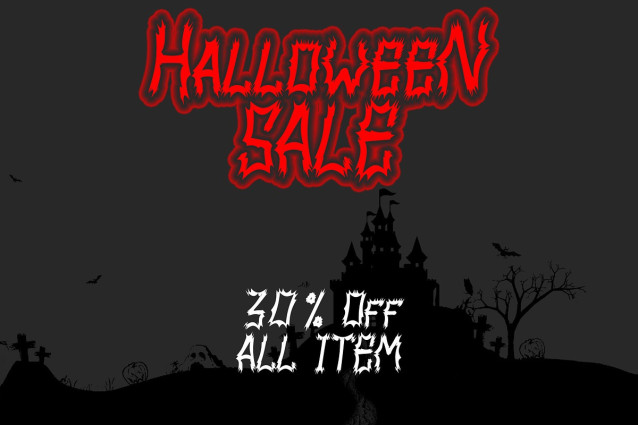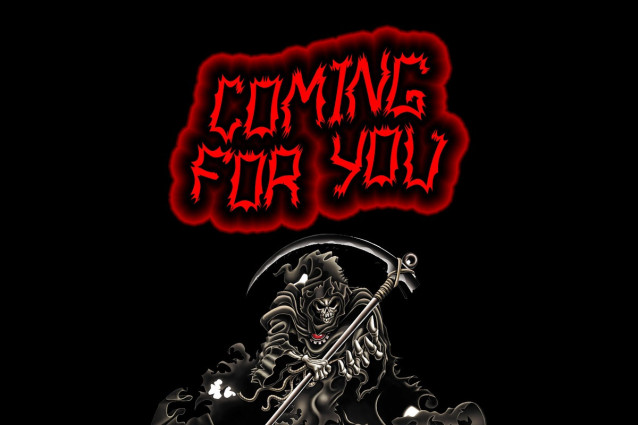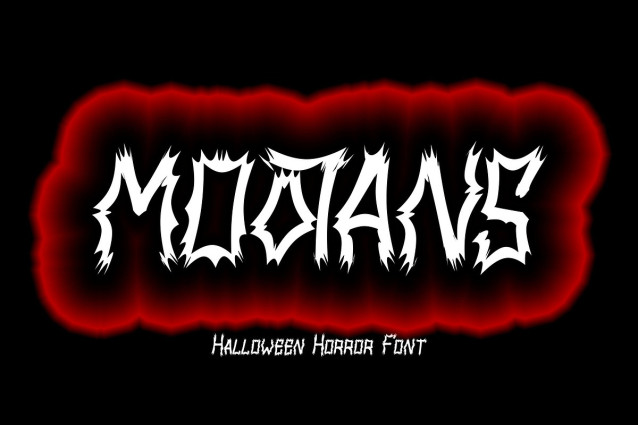
Mootans Halloween Font
Mootans Halloween Font is a horror Halloween themed font with a very unique shapes character. This font is perfect for Halloween card and Halloween banner designs. This font is suitable for making previews and covers, horror logo designs, shirt designs, and other horror graphic needs.